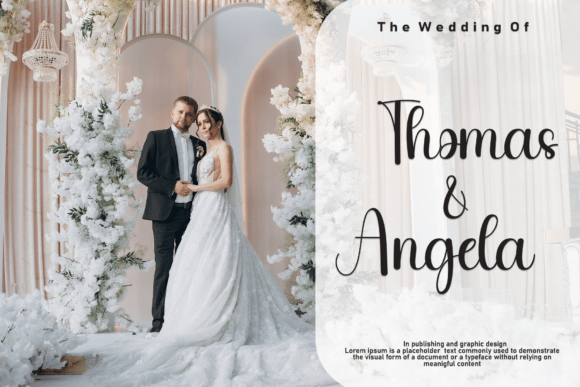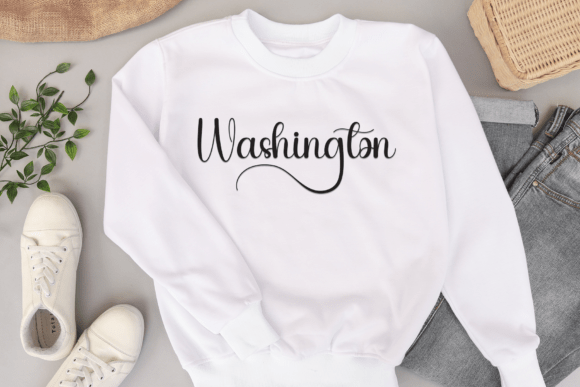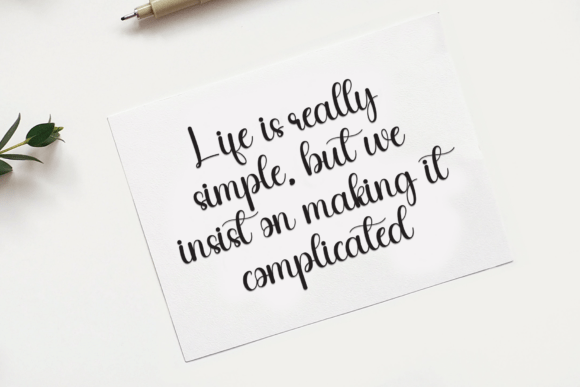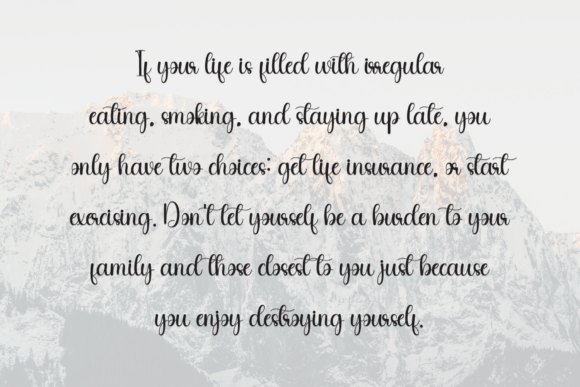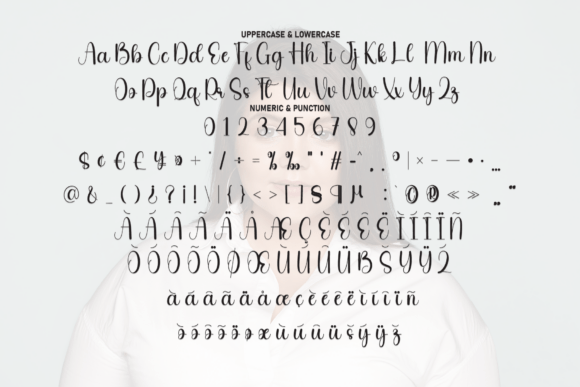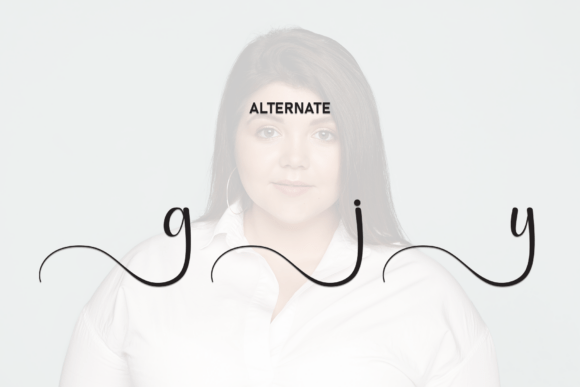
The Elusive Perfect Font: A Designer’s Love Affair with Chubby
Have you ever been in the middle of a design project, everything is going smoothly, and then you hit a roadblock – the font just isn’t right? I’ve been there, and it was on one of those frustrating days that I stumbled upon Chubby Font. It was like finding a needle in a haystack, and I couldn’t wait to share this gem with fellow designers, crafters, and creative hobbyists.
First Impressions: A Stylish Handwritten Script
Chubby is a stylish handwritten script font that radiates fresh elegance and delicate charm. Its flowing strokes and graceful curves evoke a sense of renewal, perfect for invitations, branding, and seasonal designs. This lovely typeface adds a soft, personal touch and uplifting feel to any project. Whether you’re designing a wedding invitation, a brand logo, or a social media graphic, Chubby brings a unique and refreshing aesthetic.
What I Love About Chubby ✨
• 💫 Fresh and elegant look: Chubby’s unique style sets it apart from more traditional fonts.
• ✅ Easy to read: Despite its elegant and flowing design, Chubby remains highly legible.
• 🌈 Versatile: Suitable for a wide range of projects, from digital designs to print materials.
• 💖 Emotionally uplifting: The soft, personal touch it adds can evoke positive emotions in your audience.
While Chubby is an amazing font, there are a few things to keep in mind:
• 🤔 Limited use in very formal projects: Chubby’s playful and elegant nature might not fit very formal or corporate designs.
• ⚠️ Requires attention to spacing: Like many script fonts, Chubby might need manual kerning for optimal results.
Chubby was inspired by the delicate beauty of handwritten calligraphy. The designer aimed to create a font that captures the essence of fresh elegance and personal charm. By combining flowing strokes with gentle curves, Chubby brings a sense of renewal and joy to any design.
Q: What makes Chubby unique?
A: Chubby’s unique blend of elegance and playfulness sets it apart. Its flowing strokes and delicate curves make it perfect for designs that need a fresh and uplifting feel.
Q: Does Chubby support OpenType features?
A: Yes, Chubby supports OpenType features such as ligatures and stylistic alternates, allowing for more creative and customized designs.
Q: Is Chubby difficult to read?
A: No, despite its elegant design, Chubby is highly legible, making it suitable for both digital and print media.